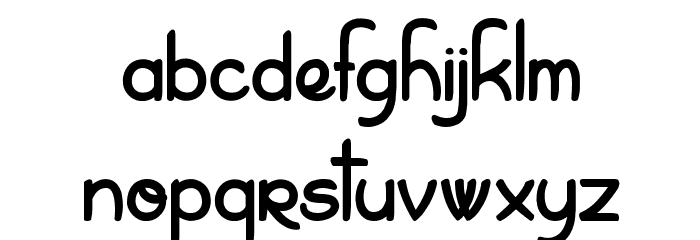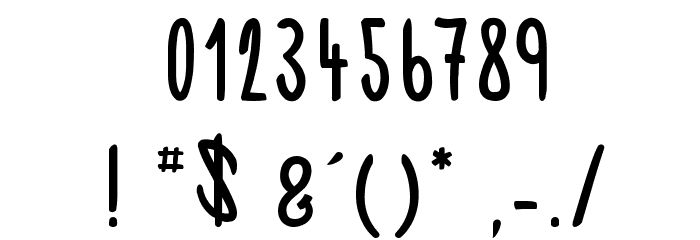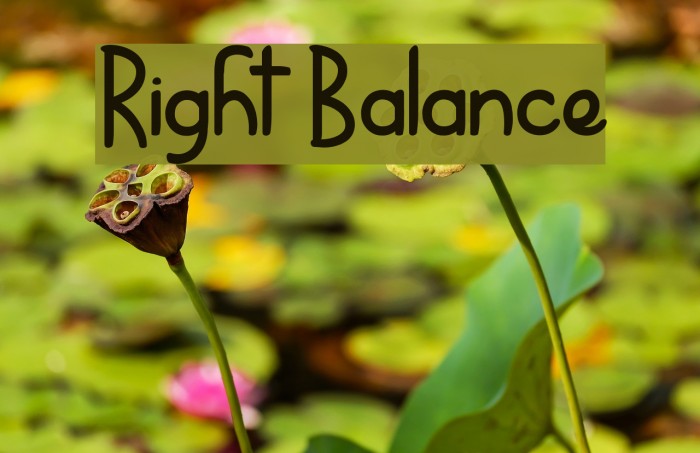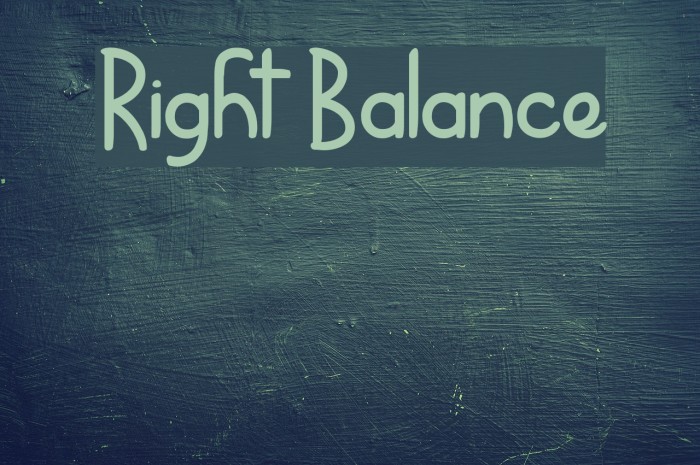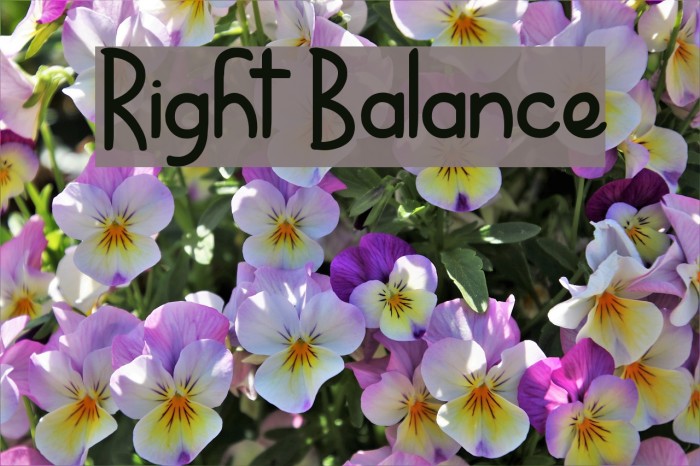
Right Balance Font
This playful and quirky font features a handwritten style with a unique and whimsical character. The uppercase letters are tall and narrow, with a slight slant that adds to their casual appearance. The lowercase letters maintain a consistent style, complementing the uppercase with rounded forms and a friendly demeanor. The numerals are bold and easily readable, while the special characters retain the font's overall playful aesthetic. This font's charm lies in its irregular strokes and the slight variations in letterforms, giving it a lively and dynamic feel.
A playful, handwritten font with a quirky and whimsical style.
- Proposed Projects: Ideal for children's books, playful branding, greeting cards, and creative posters.
- Overall Style: Playful
- Use Case: Logos, Posters, Greeting Cards